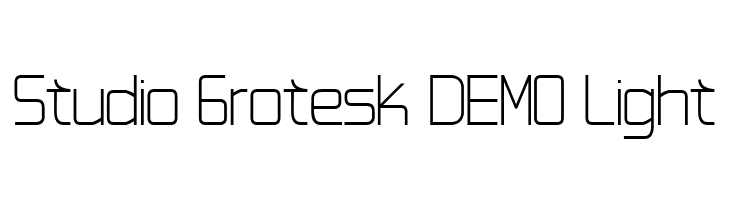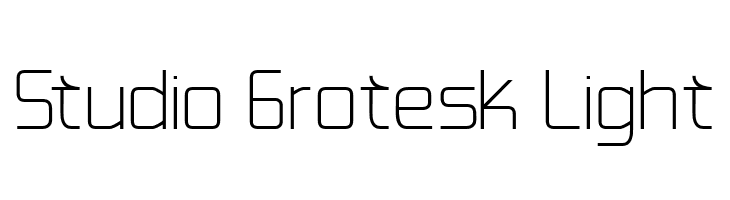
( Sascha Timplan - blog.stereotypes.de )
A sleek, modern font with thin, elongated characters and a minimalist design.
( Sascha Timplan - blog.stereotypes.de )